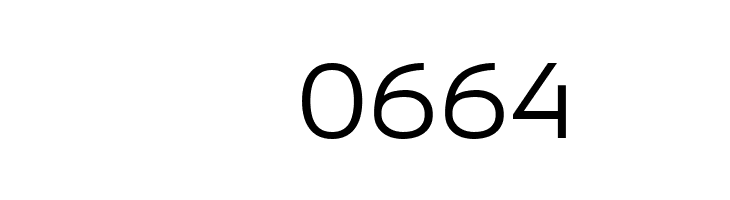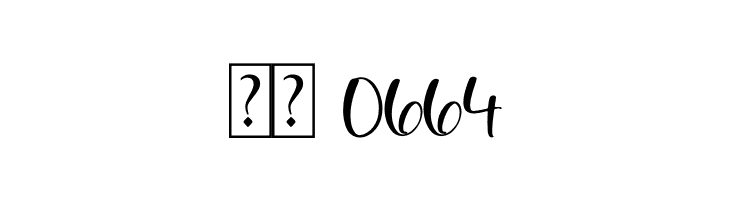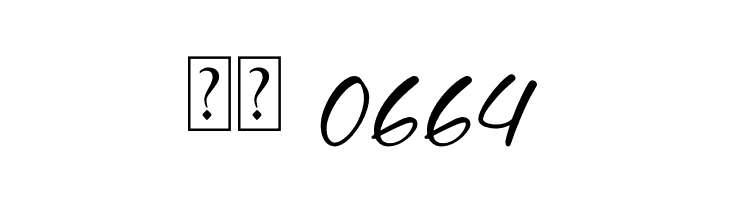
• Brittney Signature DEMO! DEMO!
A casual and elegant handwritten font with smooth, flowing lines.
• Brittney Style
An elegant script font with graceful, flowing lines and delicate curves.
• Brittney Style Italic
An elegant, flowing script font with graceful loops and swashes.
• Brittney Westone
A casual, elegant handwritten font with fluid, connected letterforms.
• Britts Hand
• Britty Rock
A bold, distressed font with star patterns, perfect for impactful designs.
• BRIXANOS
A modern, geometric sans-serif font with clean lines and a professional look.
• Brixela DEMO Italic
• Brixela DEMO Regular
• Brixs
• Brixton Bold
A bold, modern sans-serif font with clean lines and geometric shapes.
• Brixton Bold Oblique
A bold, oblique font with a modern and dynamic style.
• Brixton Book
• Brixton Book Oblique
A modern, oblique font with clean, geometric lines and consistent stroke widths.
• Brixton Light
A modern, geometric sans-serif font with clean lines and balanced spacing.
• Brixton Light Oblique
A sleek, modern oblique font with a light weight and clean, minimalist design.
• Brixton Medium
A modern, geometric sans-serif font with a clean and professional look.
• Brixton Medium Oblique
A modern, oblique sans-serif font with clean lines and dynamic style.
• Brixton_Wood_PERSONAL_USE_ONLY Vector
A bold, distressed font with a vintage, grunge aesthetic.
• BrixtonPro-Heavy
A bold serif font with high contrast and strong, elegant serifs.
• BrixtonPro-Regular
A bold, elegant serif font with high contrast and classic styling.
• Briyone
A bold, rounded font with a modern and approachable style.
• Briyties